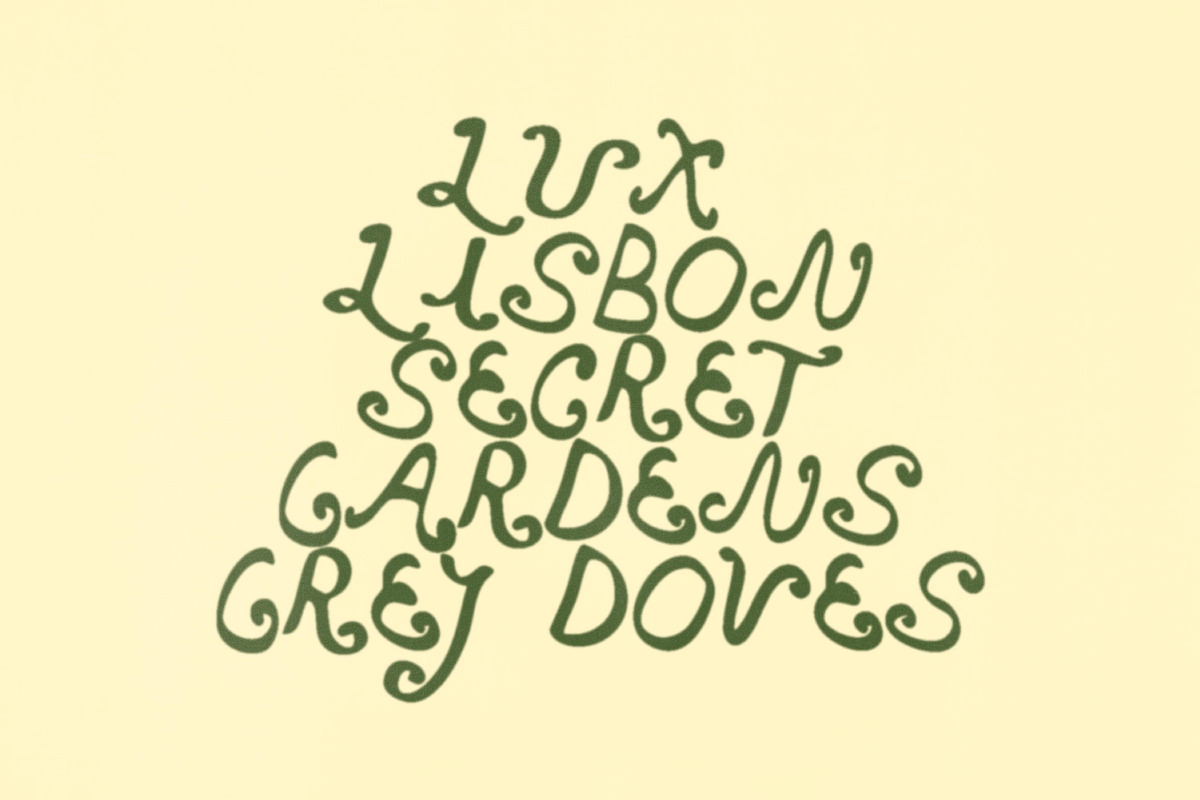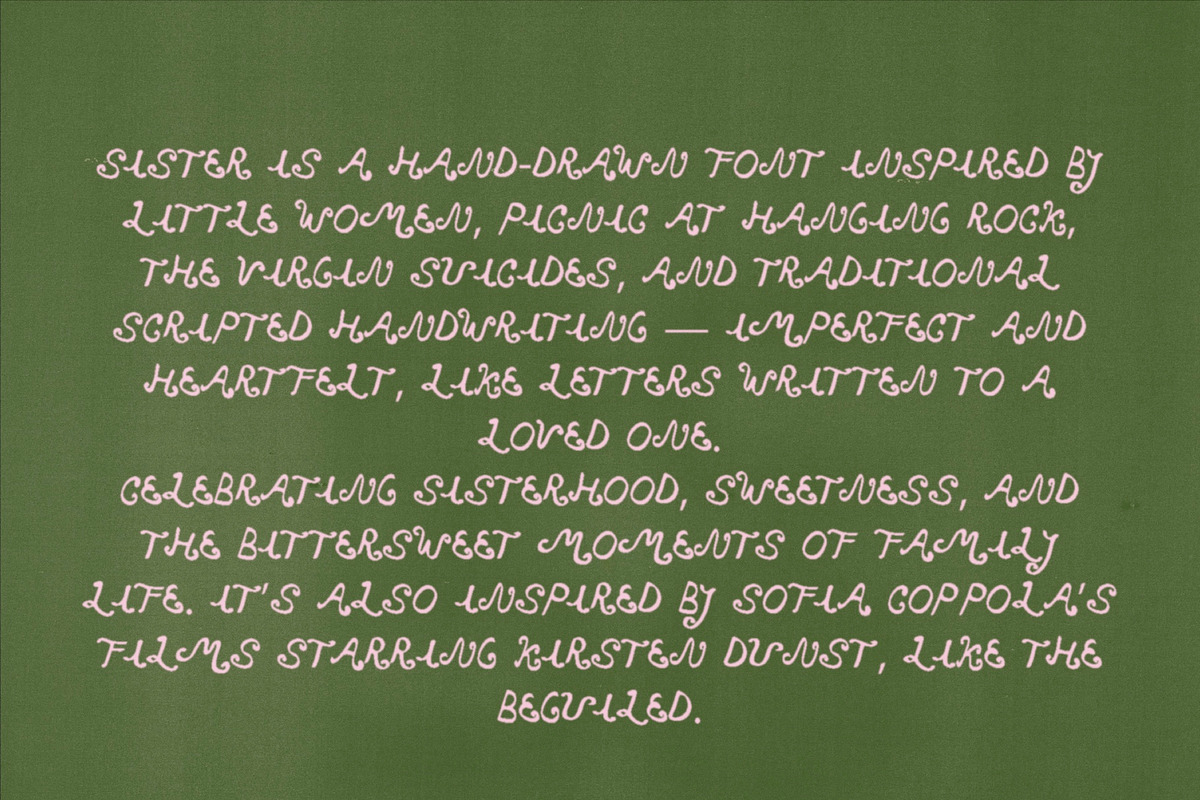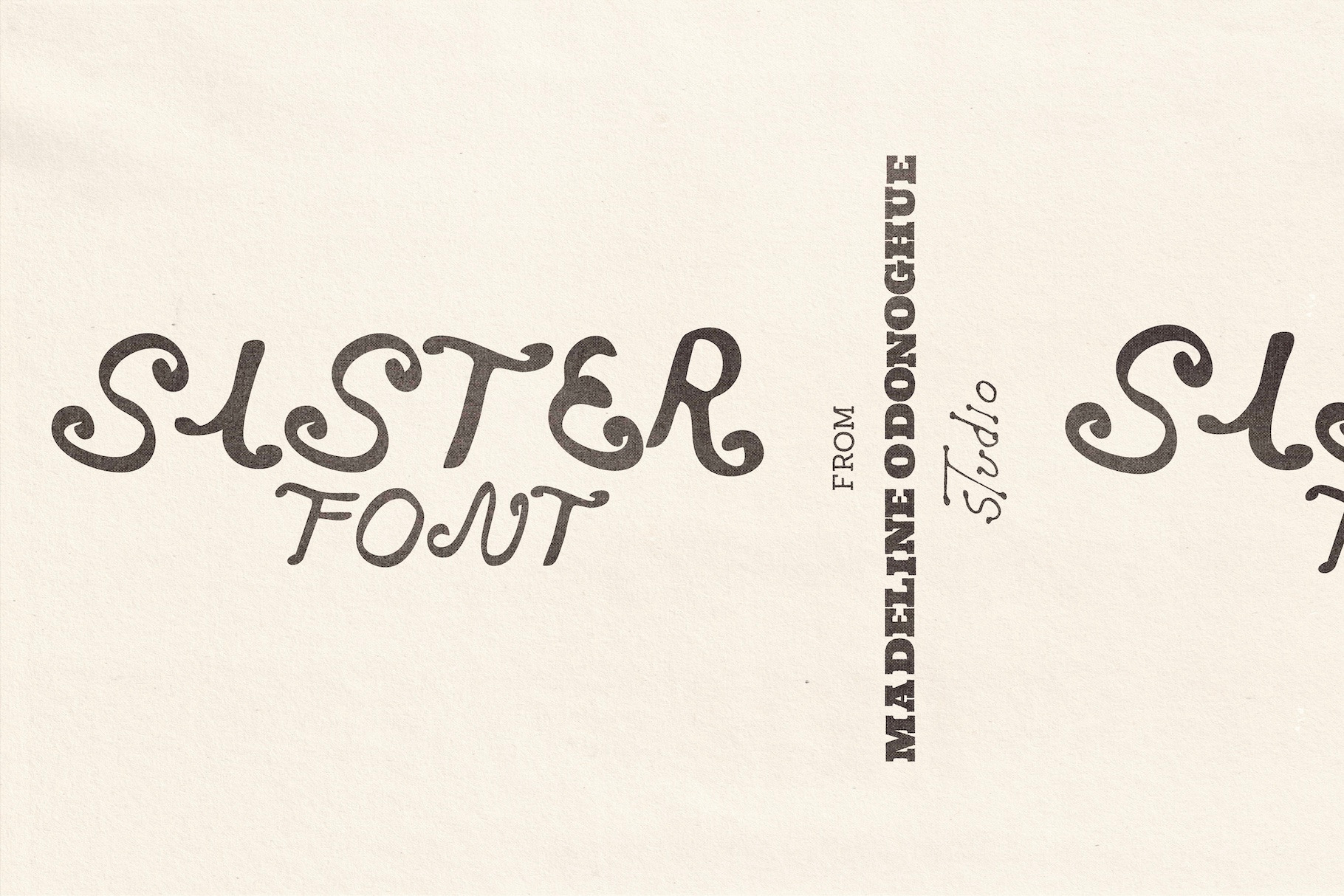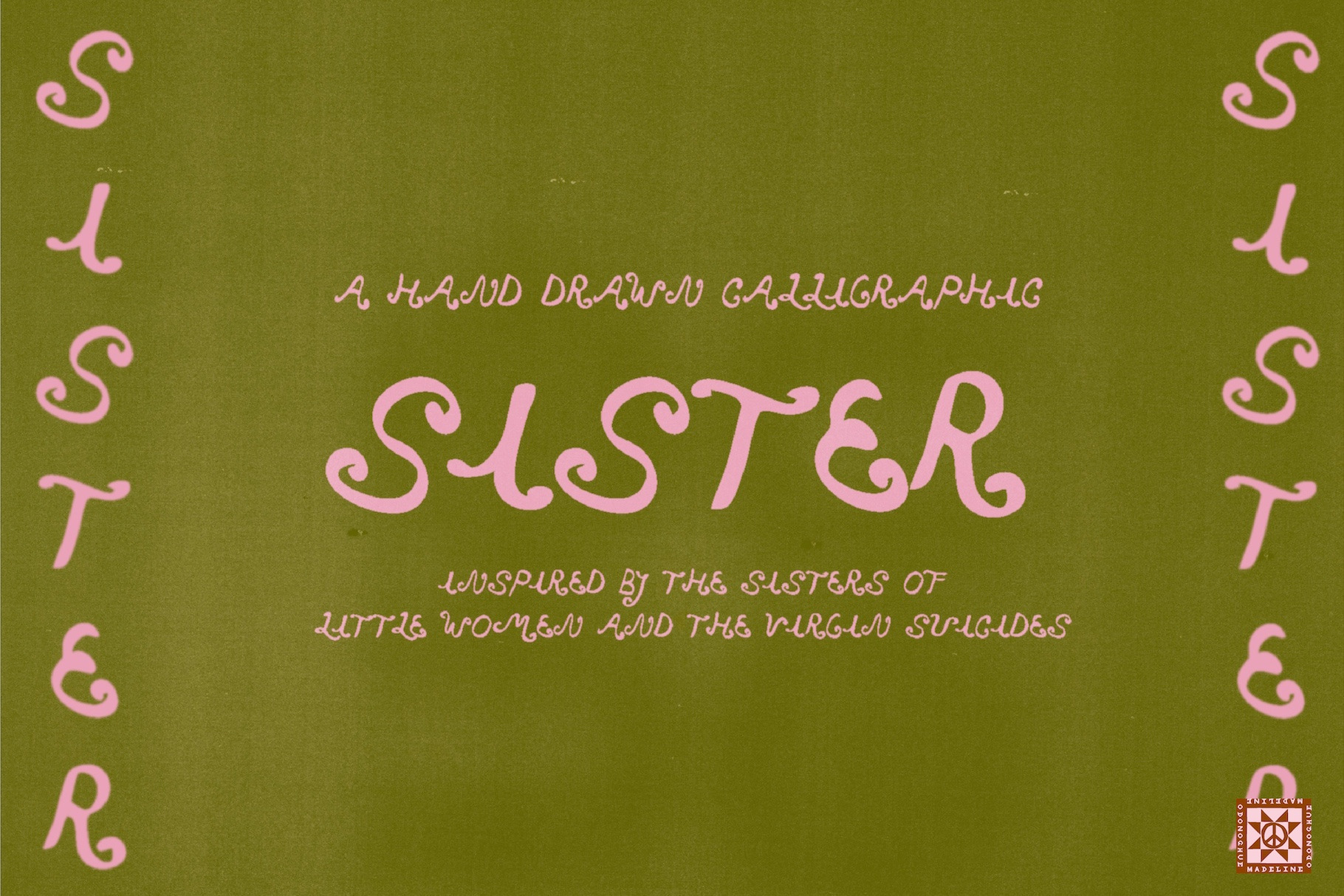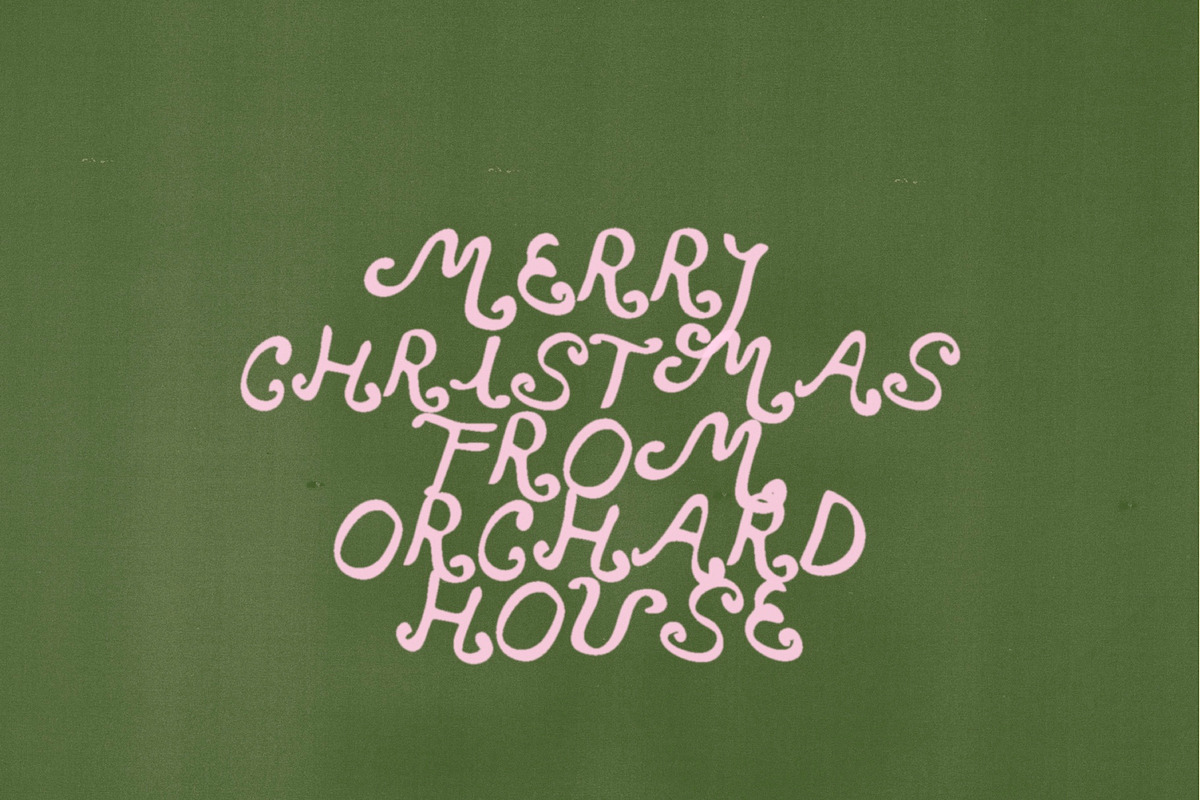
Sister Hand Drawn Font
Sister is a hand-drawn font that feels heartfelt and personal, like a letter written to someone you love. Its imperfect, flowing shapes carry warmth, intimacy, and the gentle charm of traditional handwriting.
The design celebrates closeness, connection, and the bittersweet moments of family and friendship. Soft curves, uneven lines, and delicate details give it a human, handcrafted quality, perfect for designs that need a touch of sweetness and personality.
Sister is ideal for weddings, holiday projects, logos, stationery, or any work that calls for warmth, thoughtfulness, and an artisanal, personal touch.
As a font, Sister is perfect for weddings, Christmas projects, logos, stationery, and anything that calls for a touch of warmth, intimacy, and hand-crafted character.
Letters A–Z (Uppercase only)
Numbers 0–9
No additional punctuation
Wedding invitations, holiday cards, and heartfelt stationery
Logos, branding, and packaging with a warm, hand-crafted touch
Film Titles & Credits
Any project that needs intimate, imperfect, hand-written charm